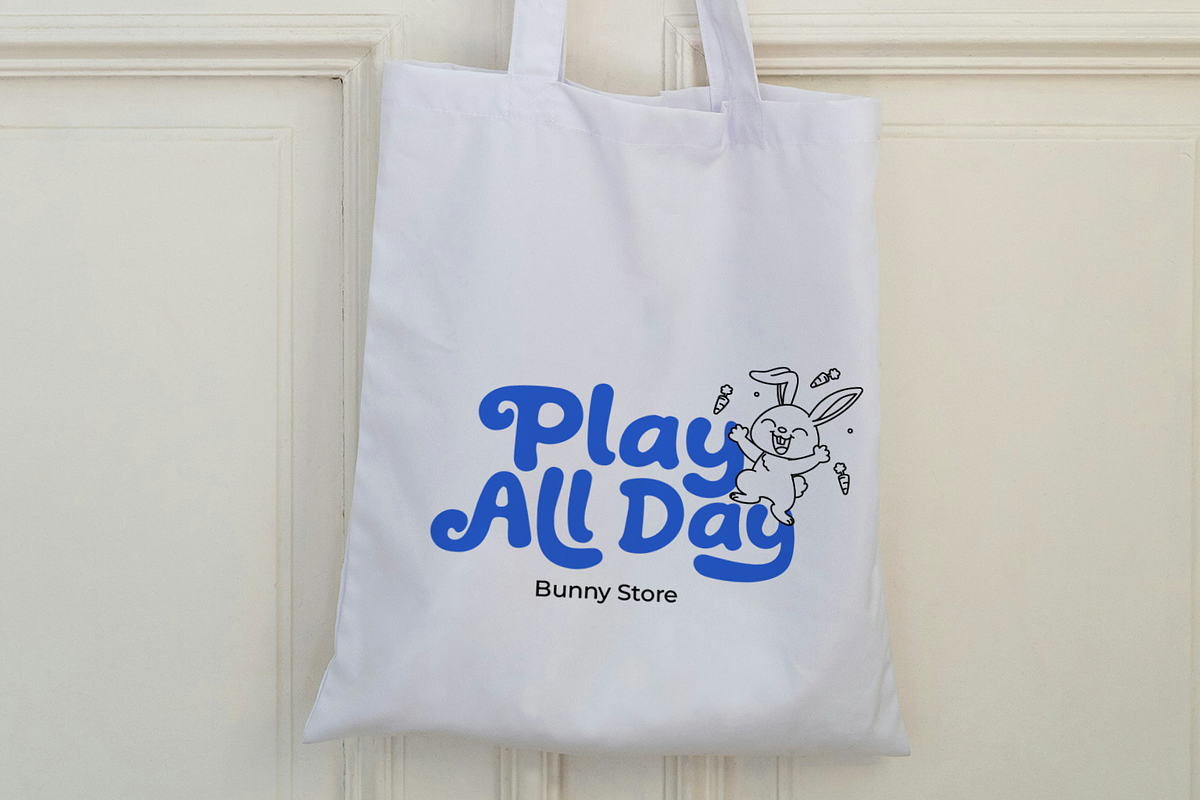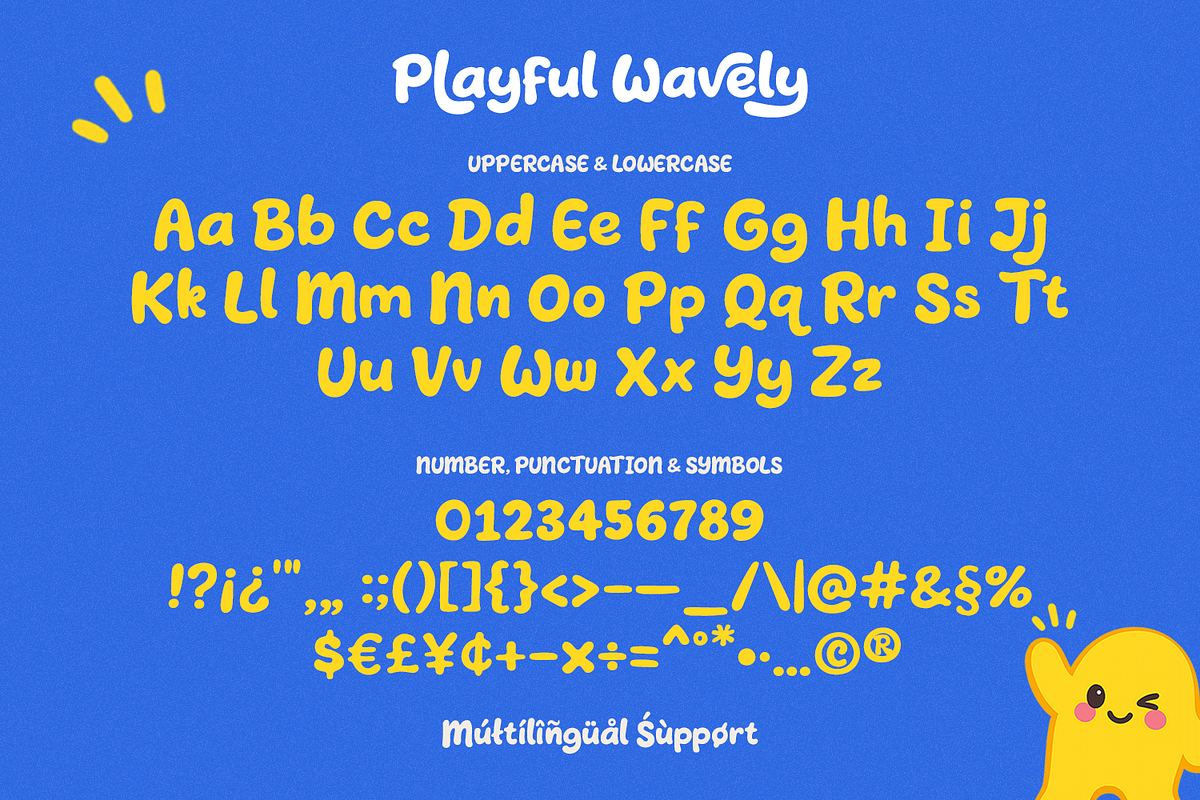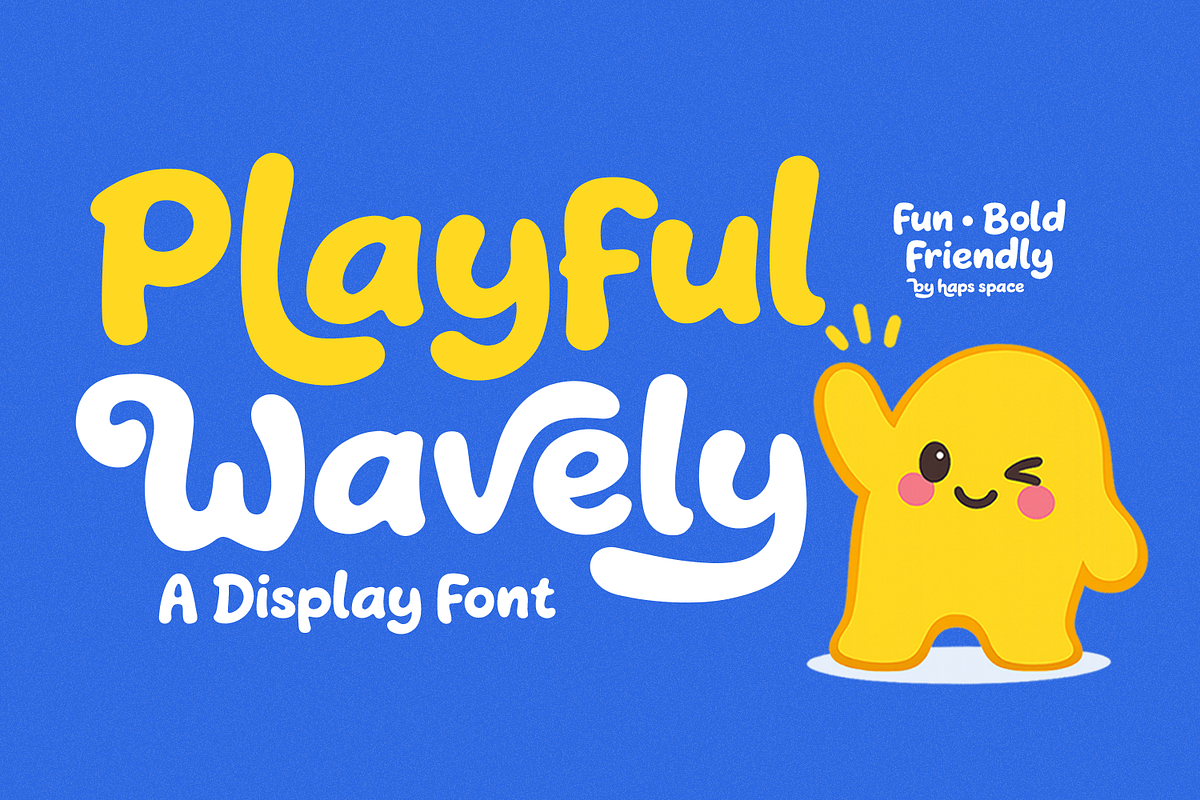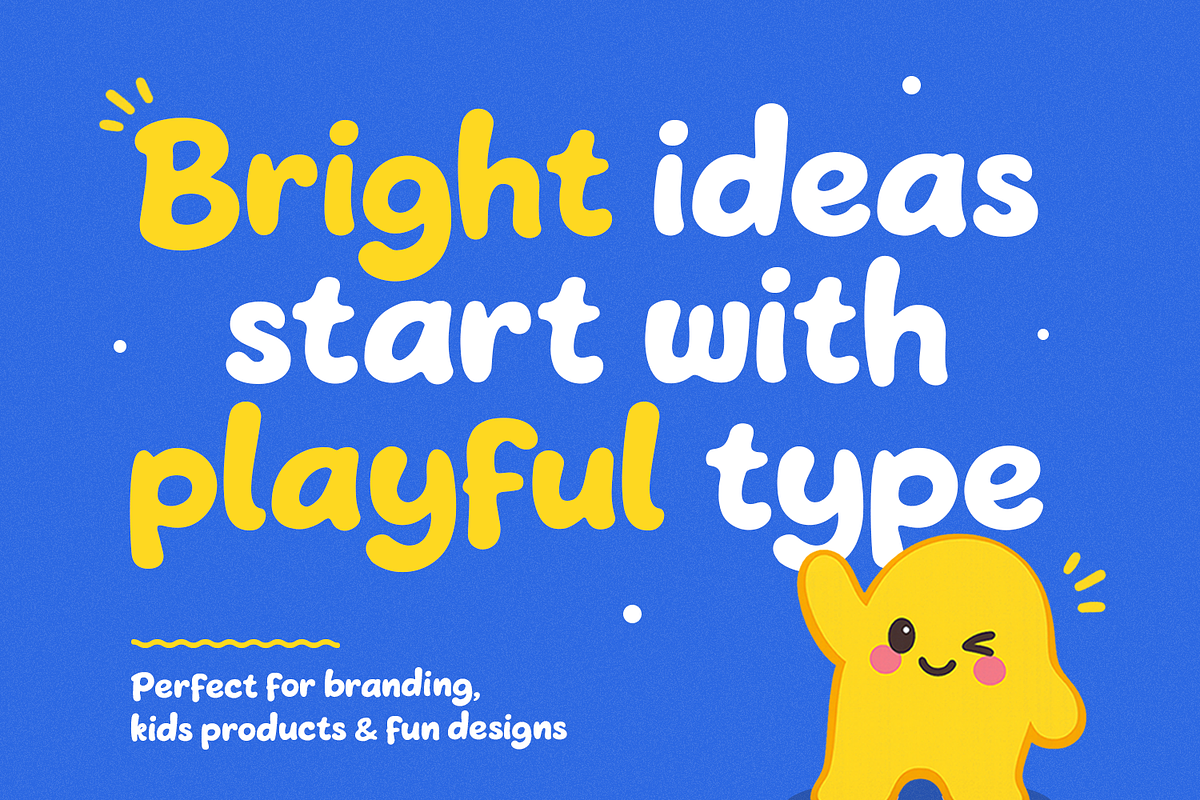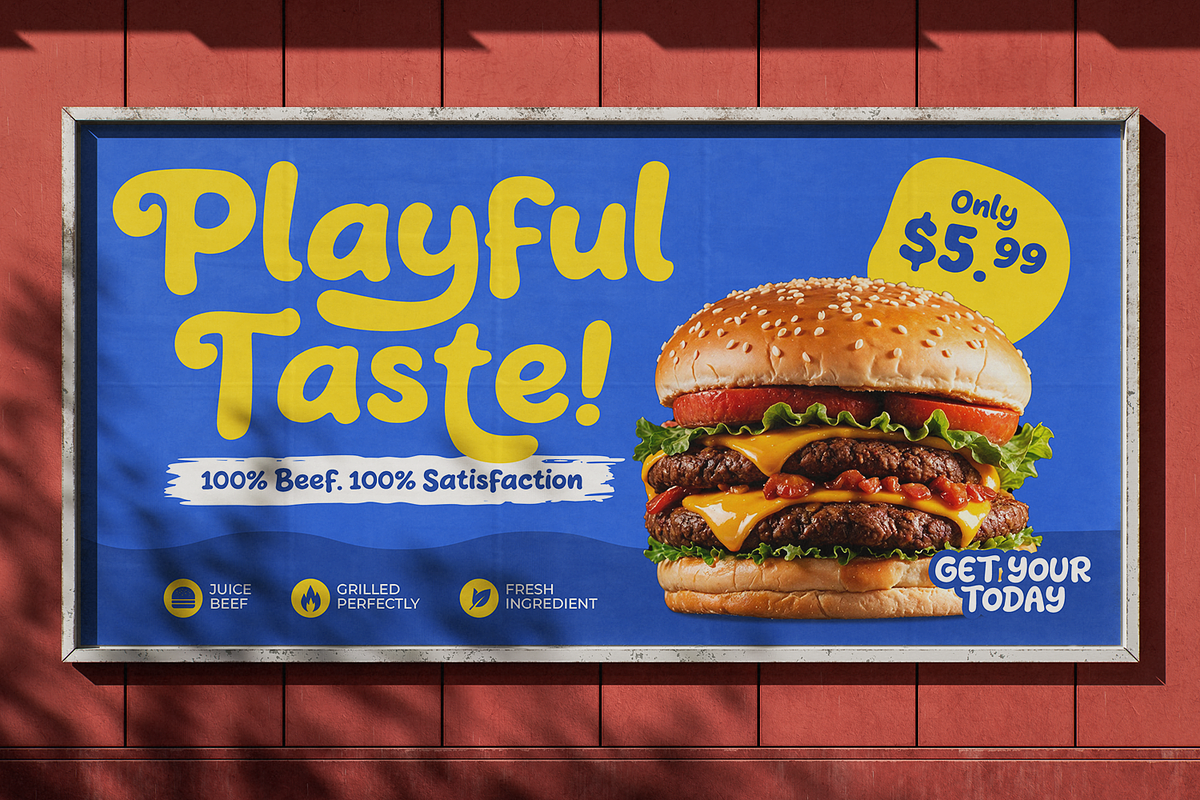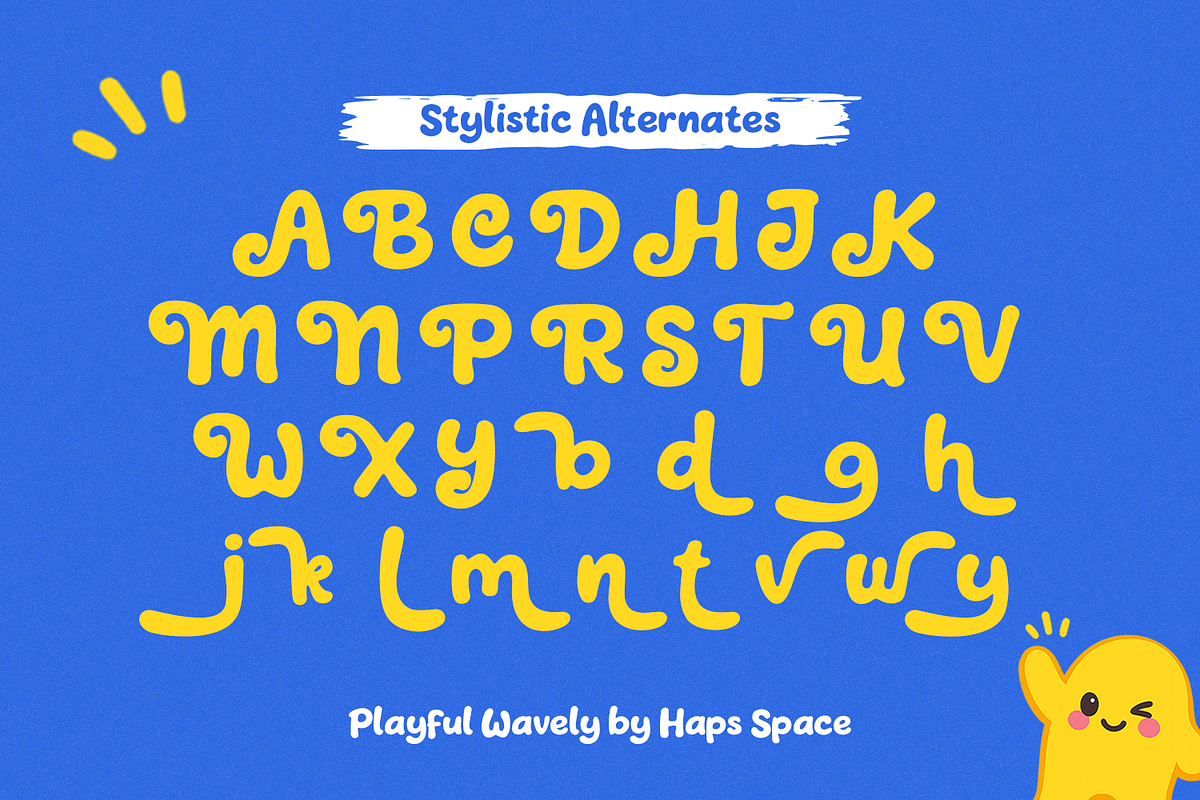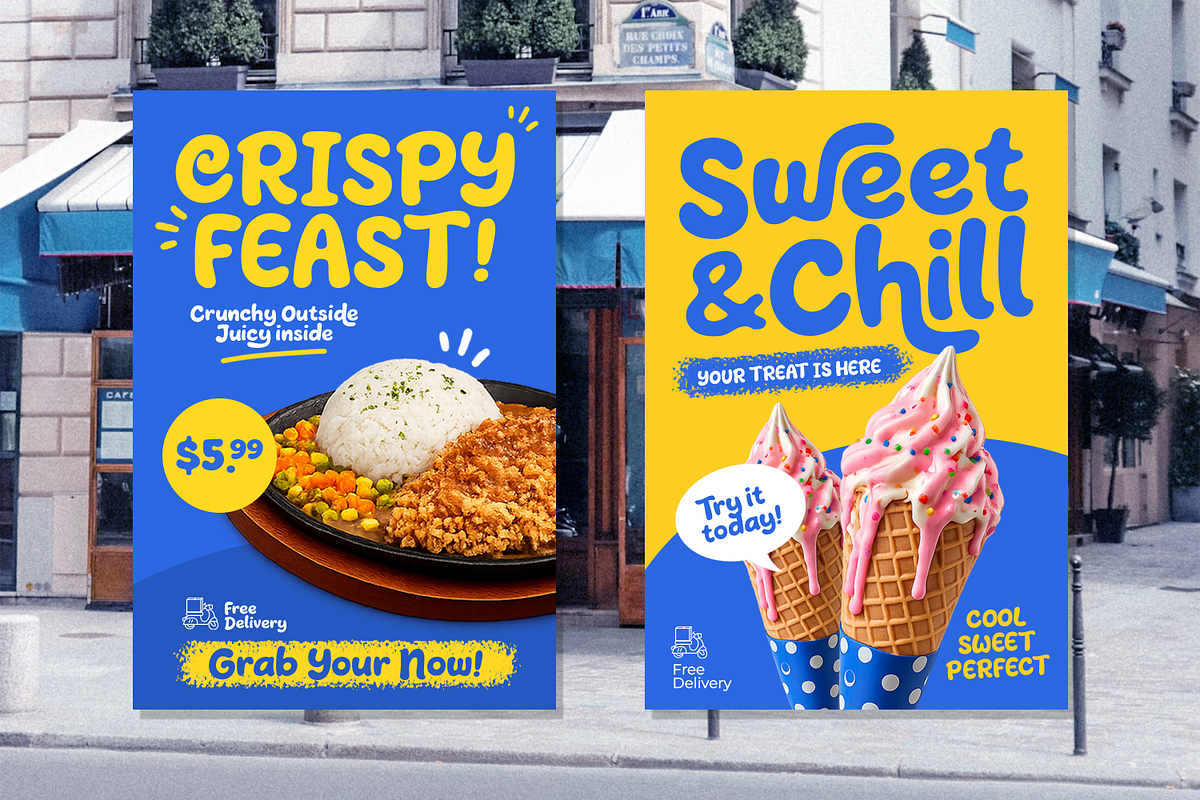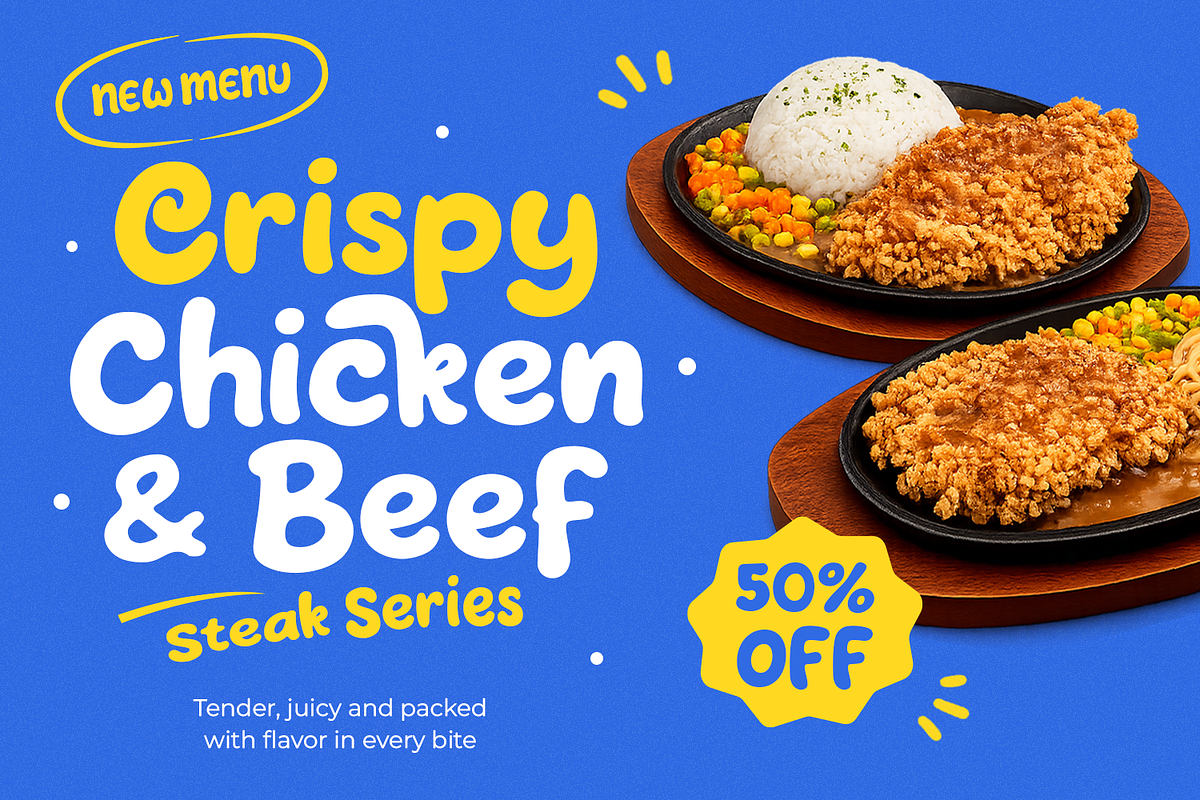
Playful Wavely Fun Friendly Display
Bring instant joy and vibrant energy to your designs with Playful Wavely! This bold display font is meticulously crafted with smooth, wavy lines and a cheerful silhouette, making it the ultimate tool for projects that need to feel welcoming, energetic, and endlessly fun.
With its thick, rounded forms and organic bounce, Playful Wavely guarantees exceptional visibility and high engagement. It is perfectly tailored for children's branding, toy packaging, casual merchandise, animated cartoon titles, and high-impact social media graphics that demand a friendly, approachable personality.
Ideal For:
- Kids & Nursery Branding: Perfect for toy brands, children's clothing, and school events.
- Creative Packaging: Eye-catching labels for snacks, candies, and colorful juices.
- Digital Content: Dynamic headers for YouTube thumbnails, gaming streams, and family vlogs.
- Merchandise & Crafts: Designing cheerful stickers, greeting cards, and birthday banners.
* Full multilingual character set
* OpenType features such as ligatures and alternates